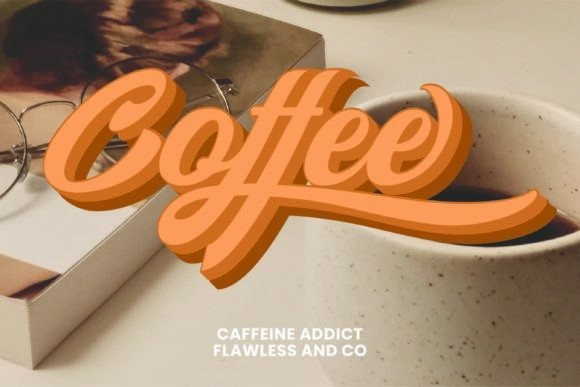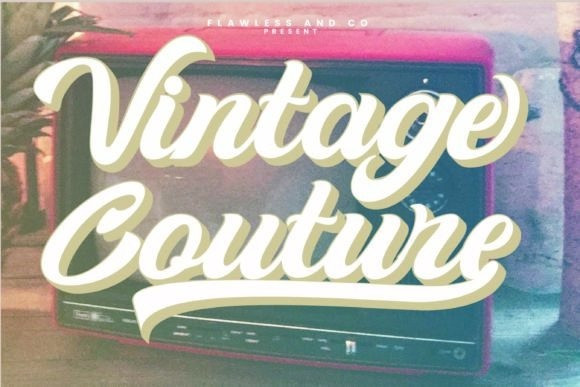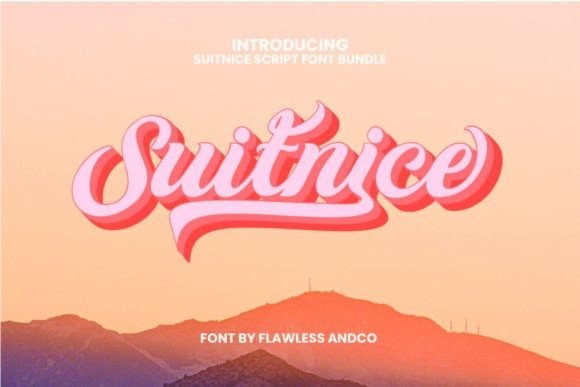
Suitnice Font
Suitnice Font is a script font with a retro and groovy style. Masterfully designed to become a true favorite, this font has the potential to bring each of your creative ideas to the highest level! This font is PUA encoded which means you can access all the glyphs and ligatures with ease!